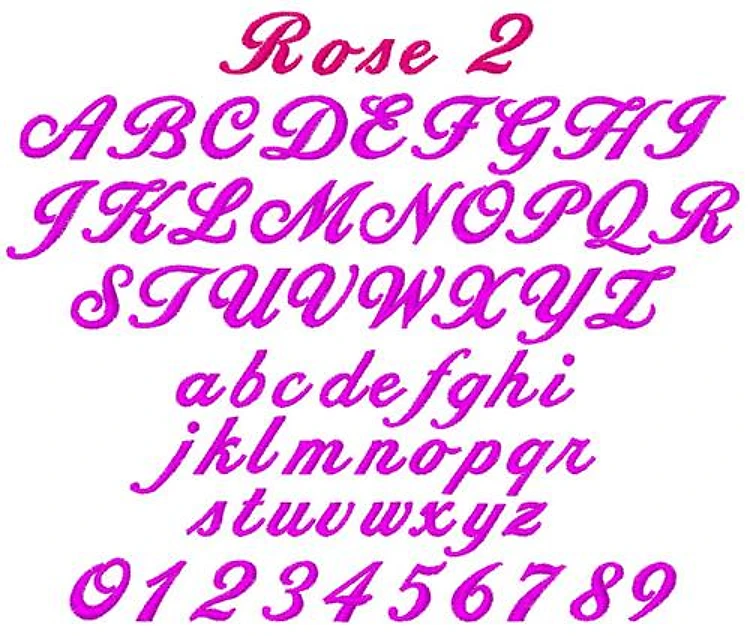
Internet Stitch is happy to present Rose2 machine embroidery font which has Flowing script machine embroidery font adds a personal touch to cushions and table linens. This design features vibrant pink text with graceful curves, available in ELP formats. included. If you would like to view more embroidery fonts and alphabets please search our embroidery fonts page.